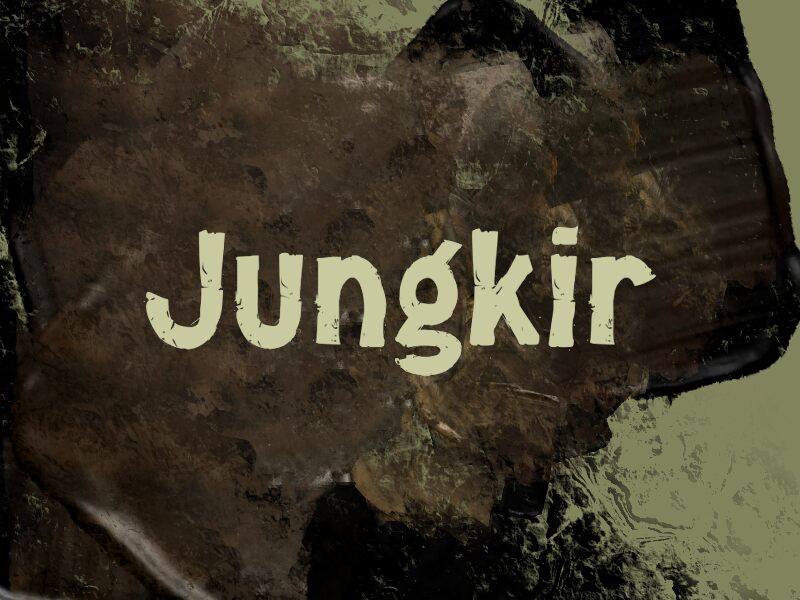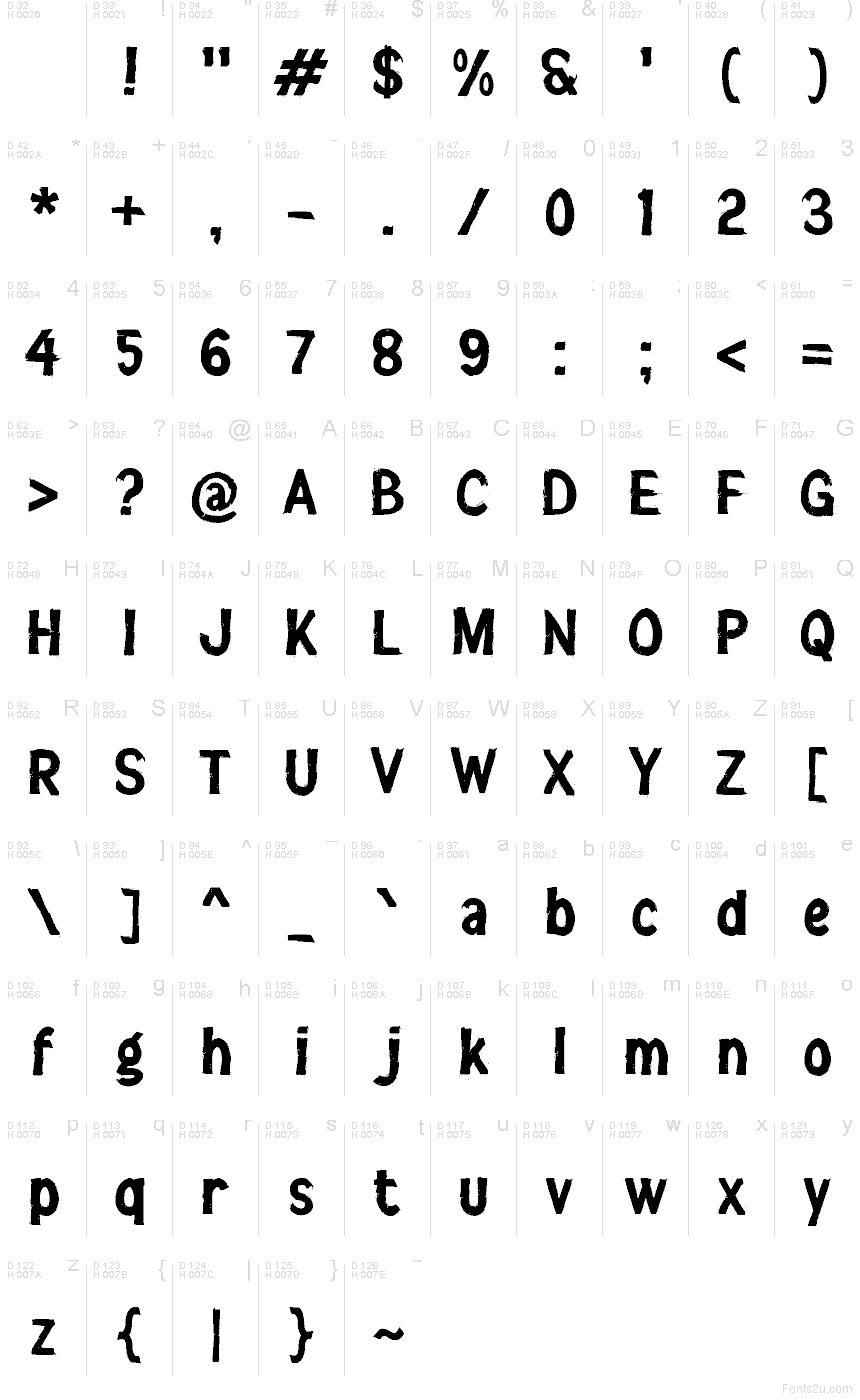
Jungkir
Jungkir font by wep is a free eroded display typeface with a bold, hand-cut attitude. Chunky rounded shapes slam into rough, scratched edges, as if the letters were stamped in thick ink and dragged across concrete. The texture feels gritty but playful, with irregular chips and scuffs that keep every word looking loud, alive, and slightly unhinged—in the best way.
Using Jungkir, you get that raw, DIY energy without sacrificing legibility at larger sizes. This free font shines on gig posters, streetwear graphics, skate or surf branding, noisy social posts, zines, and YouTube thumbnails that need to shout from the screen. For balance, pair Jungkir headlines with a clean geometric sans in smaller text to let its chaotic, grungy character really pop.